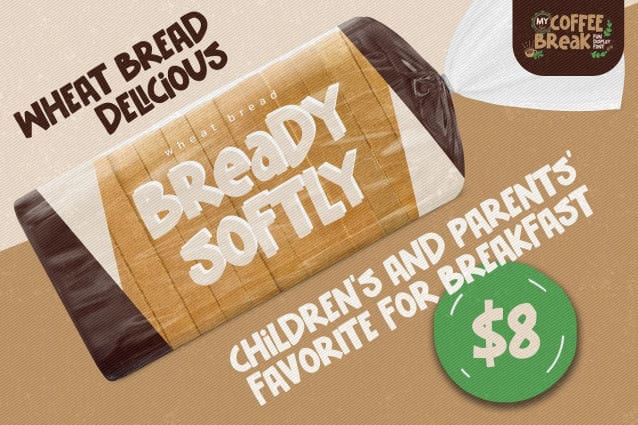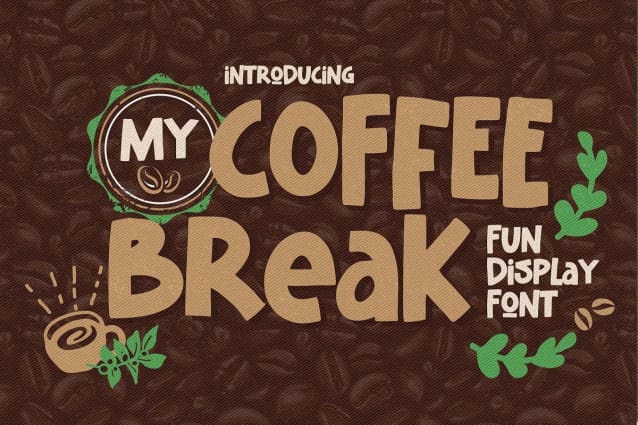
My Coffee Break Font
My Coffee Break Font is Fun Display Font with a natural feel. This handmade font will make your design has a beautiful natural touch for each details. It is perfect for any design project as Invitation,logo, book cover, craft or any design purposes. My Coffee Break Inspired by Food Logo style and combination with Unique Craft style. that will fulfill your design needs for quotes,sporty theme, logotype, wordmark, etc. This has many opentype features and support multi language. This font is PUA encoded which means you can access all of the magical glyphs with ease! It also features a wealth of special features including ligatures glyphs and Alternates glyphs.